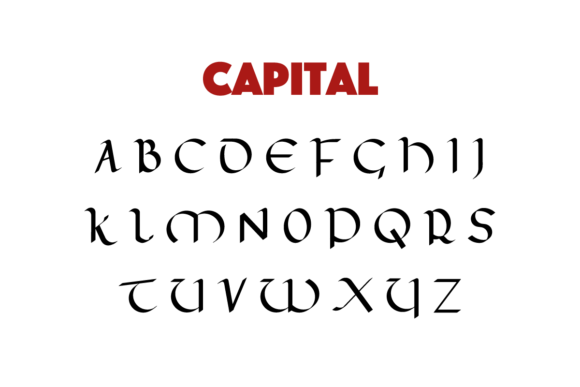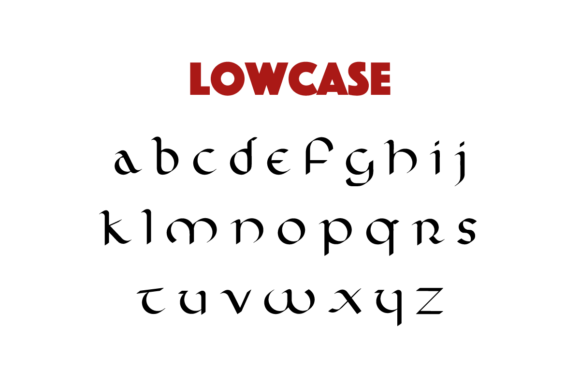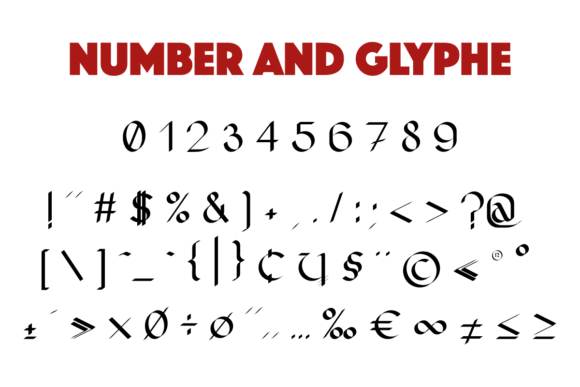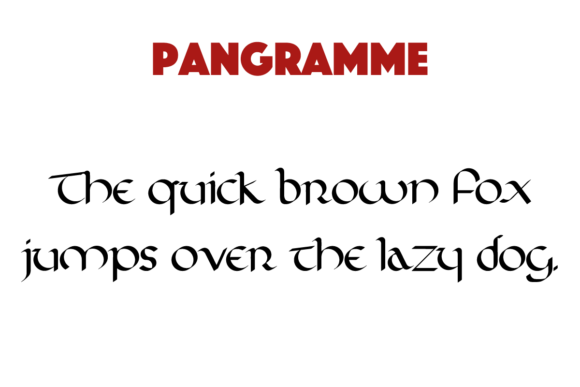
Introduction to Jezabelle Font
Imagine you’re working on a creative project, pouring your heart and soul into every detail, but something’s missing. The text just doesn’t pop. That’s when you need a font that elevates your design to the next level. Welcome to the world of Jezabelle Font, a modern masterpiece that brings a touch of sophistication to your work.
Jezabelle Font is more than just a font – it’s an artistic expression of timeless elegance. This 8th-century-inspired font has been carefully crafted to preserve its distinctive 20-degree slant, while introducing a suite of custom glyphs to enhance classic characters. With its high-quality design, Jezabelle Font is a valuable resource for designers, perfect for both print and digital media. And the best part? It’s available for free download, making it an accessible design resource for any creative project.
Key Features of Jezabelle Font
- High-quality design for creative projects, ideal for use in digital art, graphic design, and typography.
- Features a unique, cursive script style with elegant and sophisticated characteristics.
Honest Review: Jezabelle Font
As a designer, I’m always on the lookout for high-quality design resources to enhance my creative projects. Recently, I came across the Jezabelle Font, which I was excited to try out.
What works well with the Jezabelle Font is its unique and elegant design, perfect for projects that require a touch of sophistication. The font is available for free download, which is a huge plus for designers on a budget. The transparent background option is also a great feature, allowing for seamless integration with other design elements.
- ✨ Unique and elegant design
However, there are some limitations to consider. The Jezabelle Font is only available in a few weights, which may not be suitable for projects that require a wide range of font styles.
- ⚠️ Limited weight options
Overall, the Jezabelle Font is a great addition to any designer’s toolkit. While it may have some limitations, its unique design and free download option make it a worthwhile resource for any creative project.
Tips for Getting the Most Out of Jezabelle Font
For a creative project, consider using the Jezabelle Font in combination with a transparent background to create a unique and eye-catching design. Experiment with different font sizes and styles to find the perfect balance for your design.
The Jezabelle Font is ideal for use in creative projects such as graphic design, digital art, and web design. It is also suitable for use in presentations and documents where a unique and stylish font is required.